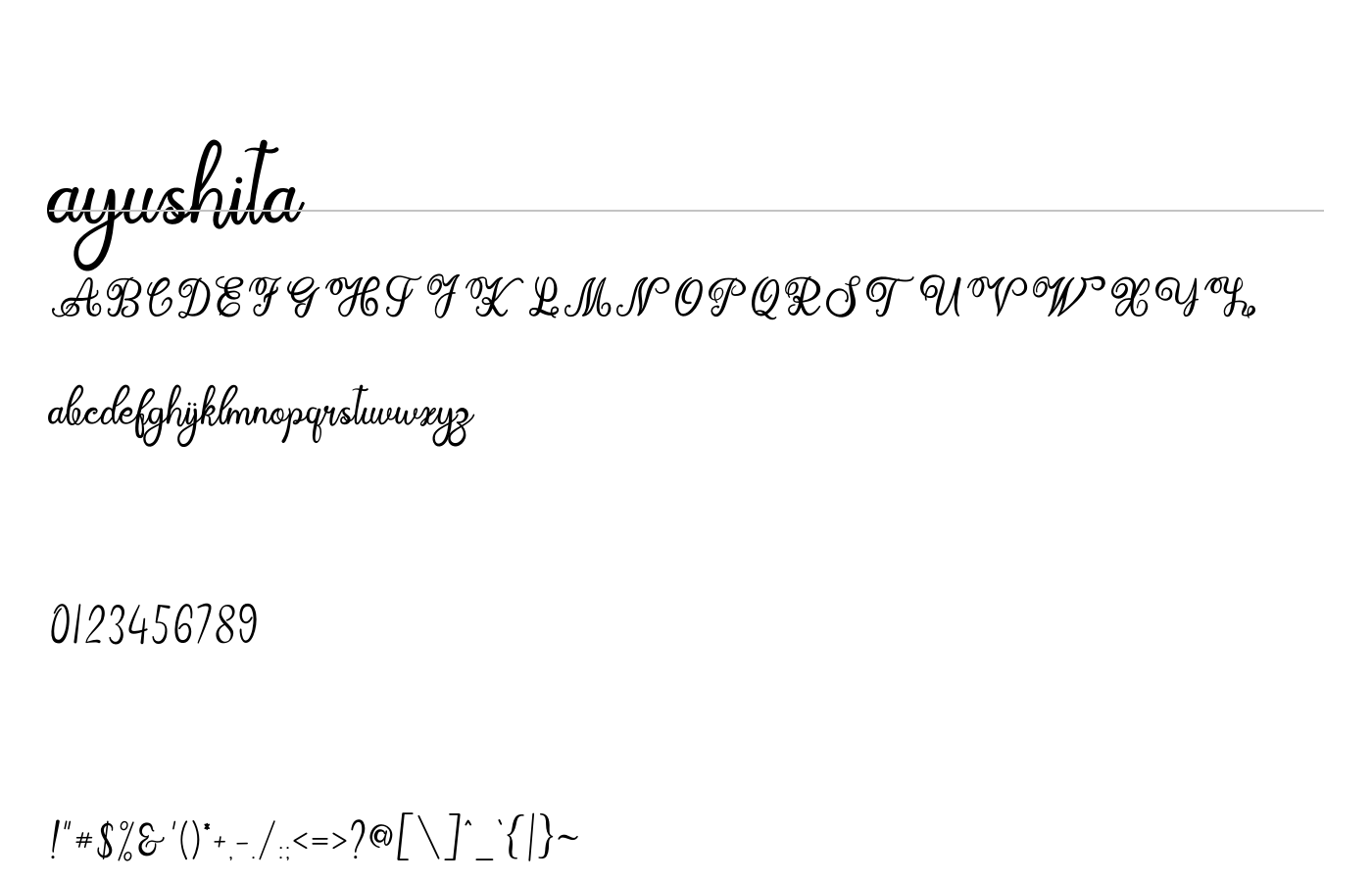
Ayushita is a delicate script font characterized by its elegant, flowing lines and refined curves, giving it a light and airy feel. Its slender, graceful letterforms and ornamental uppercase create a classic and romantic personality, making it perfect for invitations, branding, and feminine or vintage-inspired designs. This font works best in decorative contexts where a touch of sophistication and charm is desired.
ayushita Font
About ayushita Font